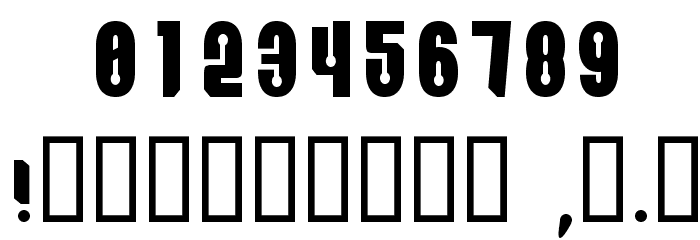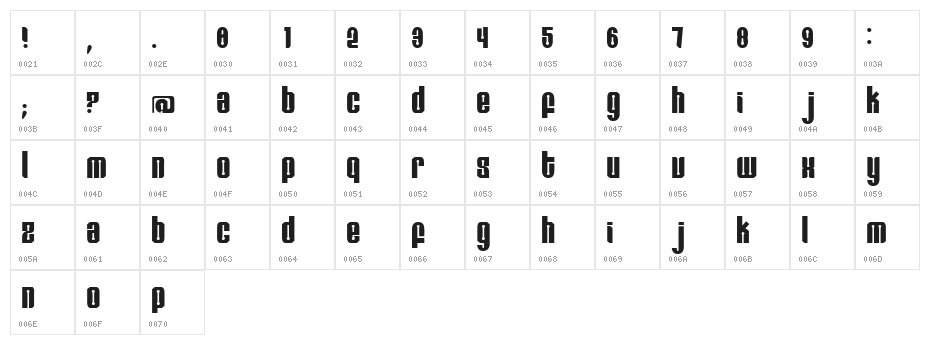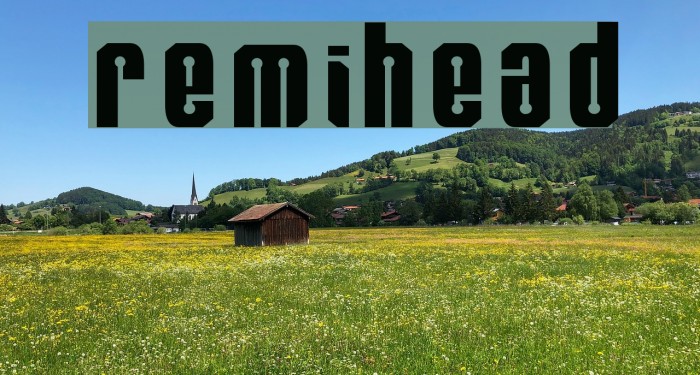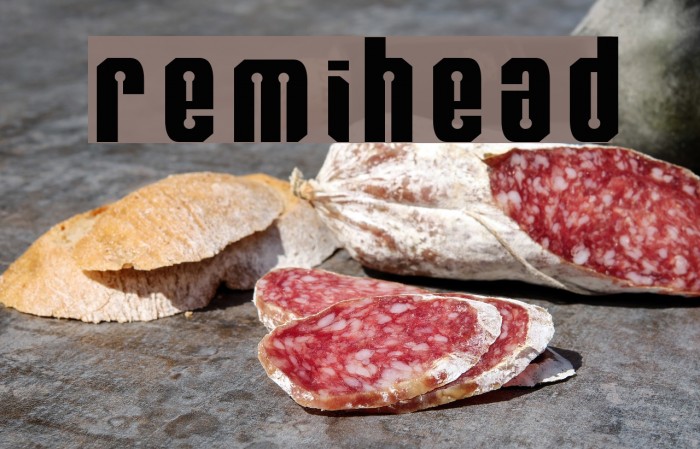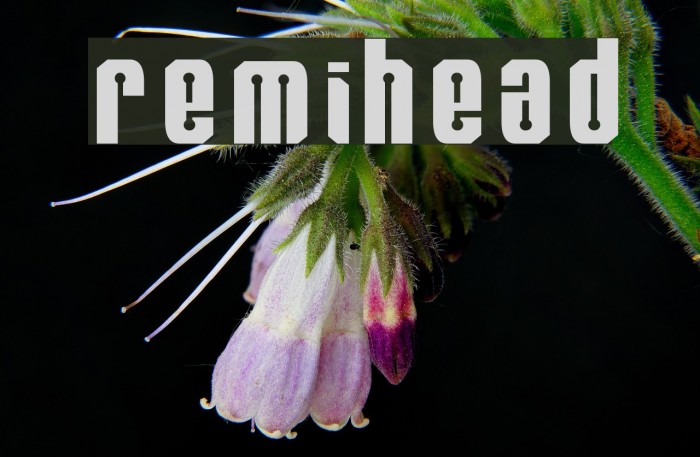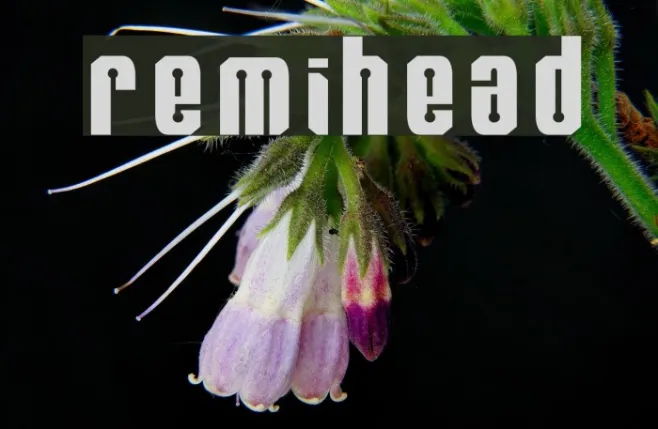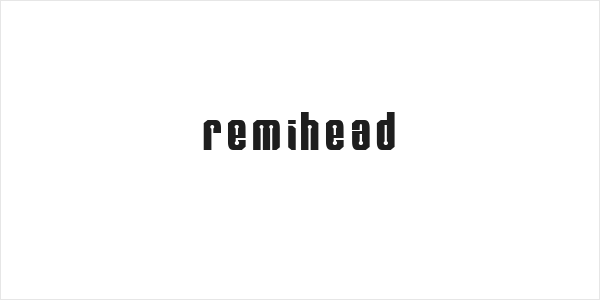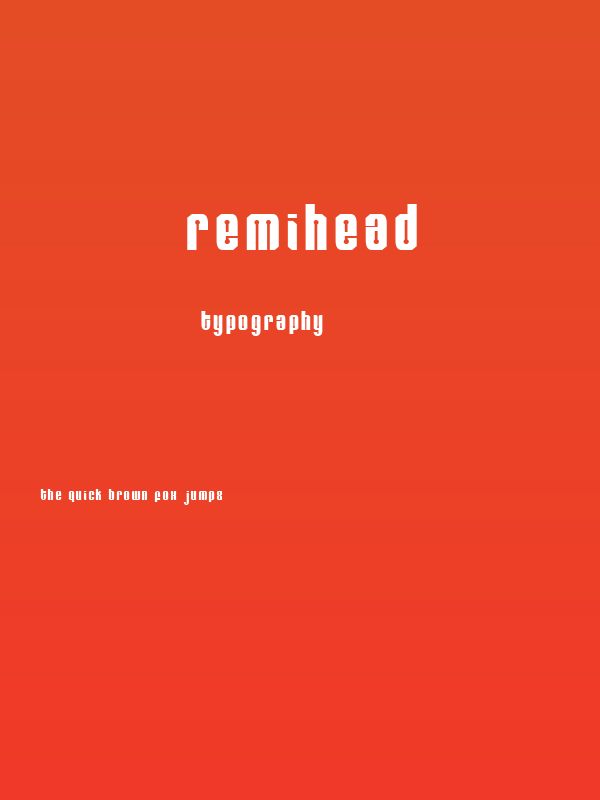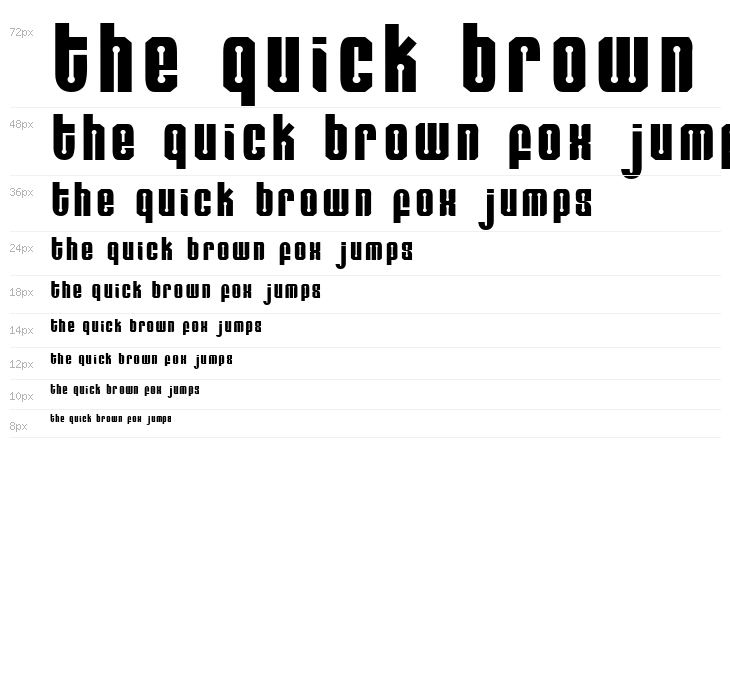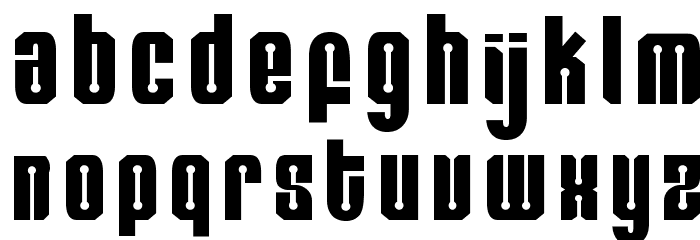
RemiHead Font
RemiHead Description
This font features a bold and striking design with a strong geometric influence. The characters are blocky and robust, with a unique cut-out style that adds a modern and industrial feel. The uppercase and lowercase letters maintain a consistent width, creating a uniform appearance. The numbers are equally bold, ensuring they stand out in any design. Special characters are included, maintaining the same bold and geometric style. This font is perfect for projects that require a strong visual impact.
Proposed ProjectsIdeal for posters, logos, branding, and headlines that need a strong, impactful presence.